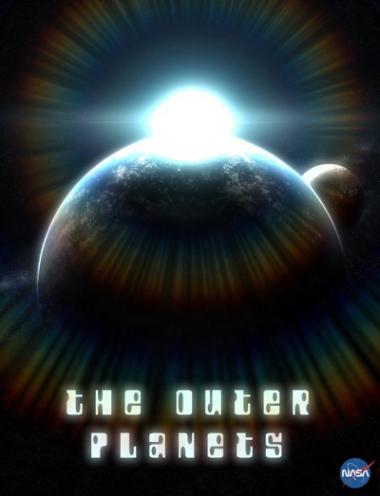
zoftly70 eYe/FS
The design is absolutely perfect for the era ... great song as well :)
@p2pnut: Thanks a lot for your kindly comments! I'm with you about the great song. I think the font can works well in other different ambits, like in SF or futuristic headlines. What do you think about this, please? I add another sample.
Fantastic work Elmo, you are the sultan of swing!
revisiting the 70s
great creation
Congratulations! FontStruct Staff have deemed your FontStruction worthy of special mention. “zoftly70 eYE/fs” is now a Top Pick.
@meek: Thank you very much for this TP. ¡Gracias, jefe! (spanish talk). I like the 70s, you know, and I think this can be another first point of view to create some of our new fonts designs... But not the only, of course. Revisit the past and make real the best future, that must be something like our homework everyday, IMHO.